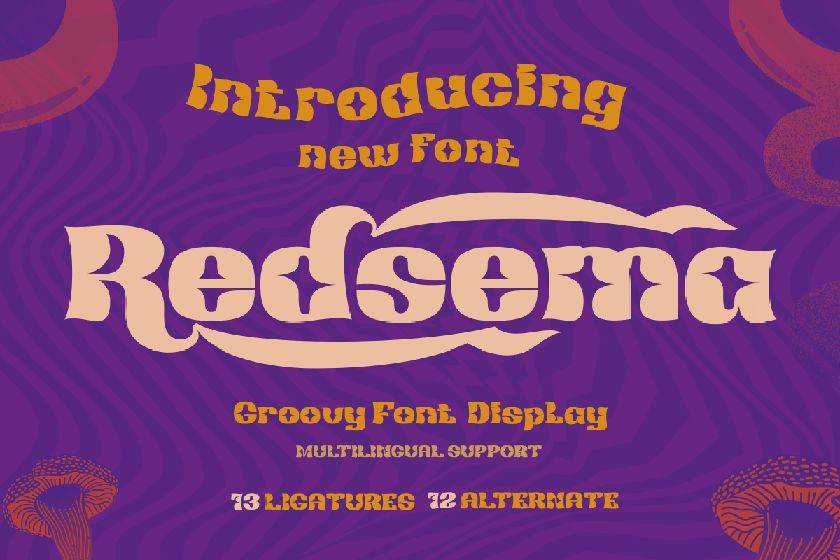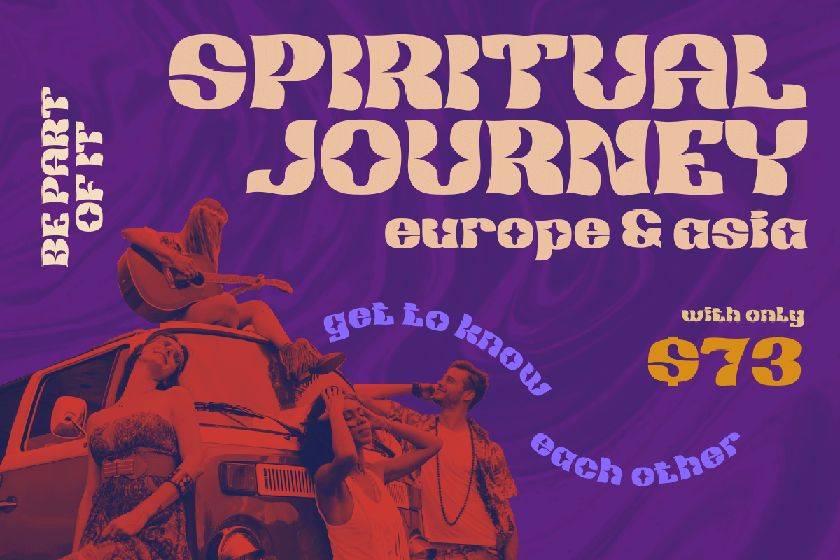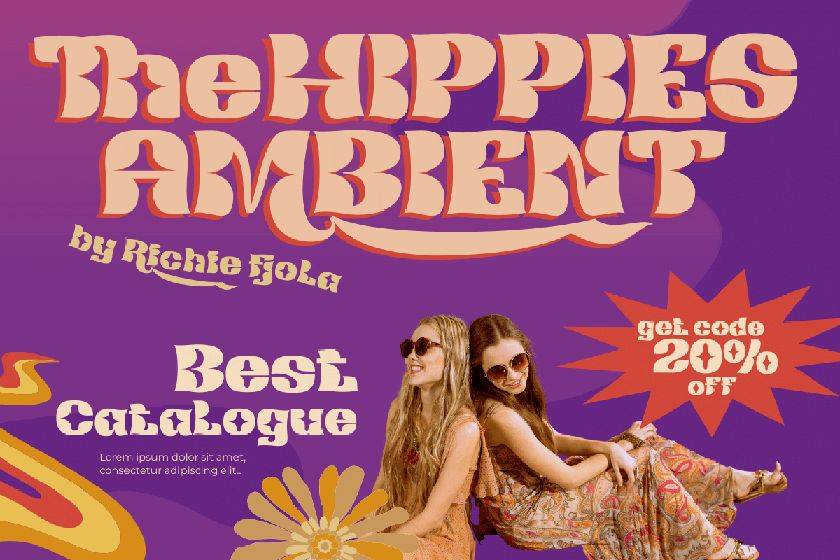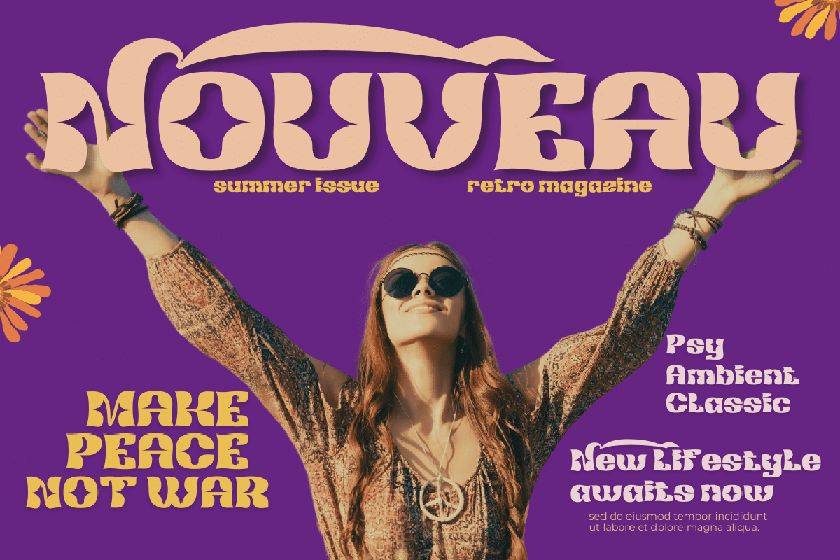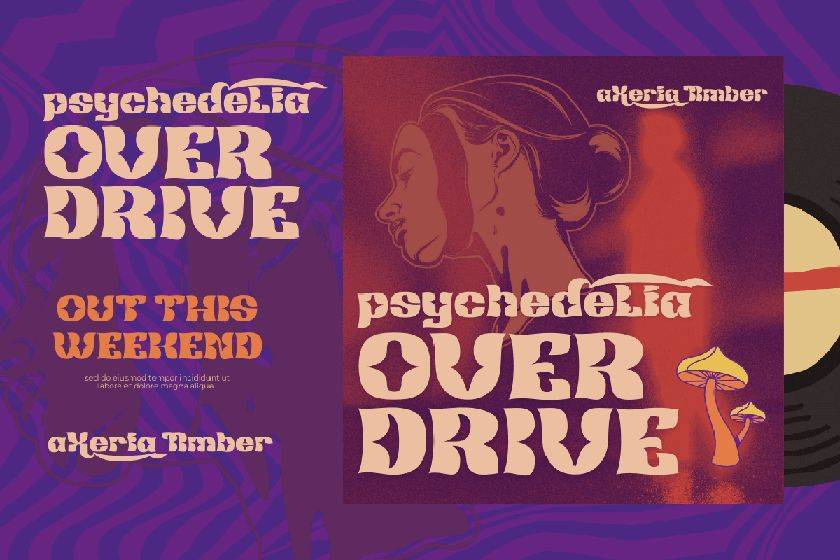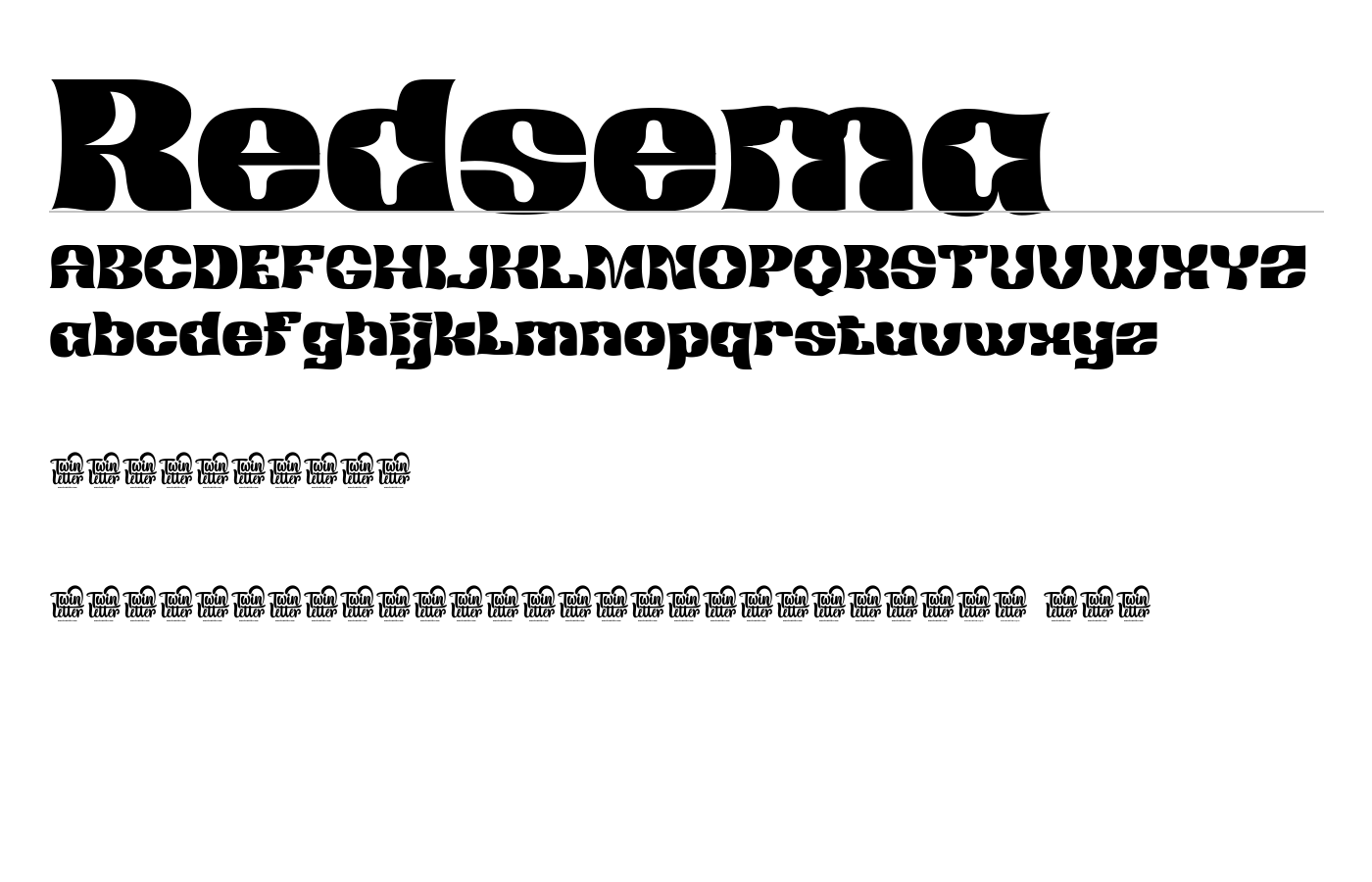
Redsema is a bold, decorative serif font with uniquely playful and exaggerated curves that create a striking, almost whimsical appearance. Its heavy weight and condensed structure make it ideal for eye-catching headlines, logos, and posters where a dramatic, vintage-inspired personality is desired. This font works best in creative branding and display uses, adding a distinctive, artistic flair that commands attention.
Redsema Font
About Redsema Font